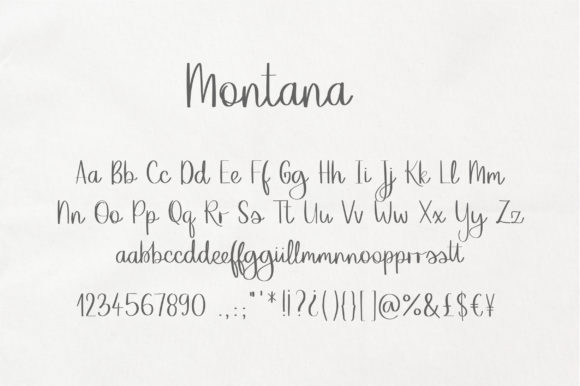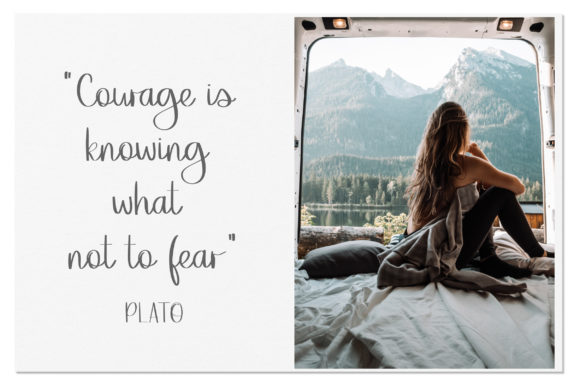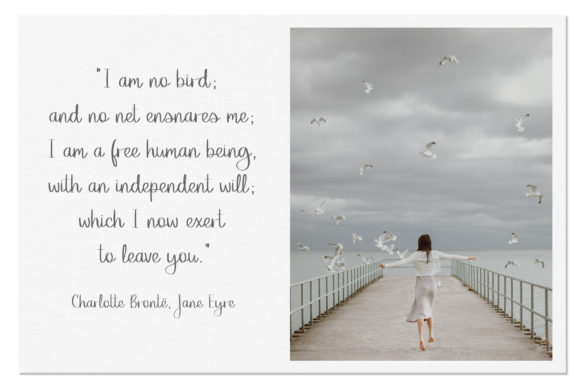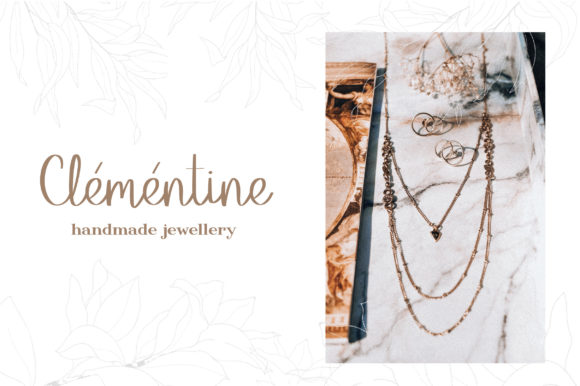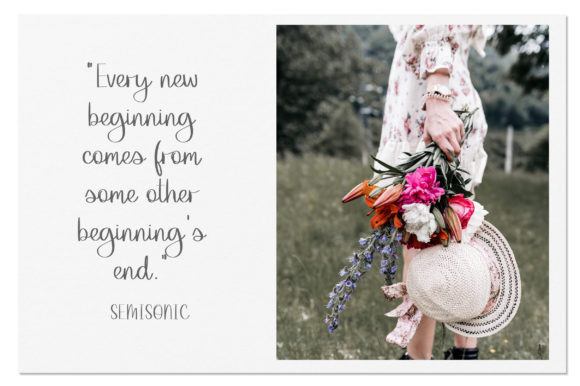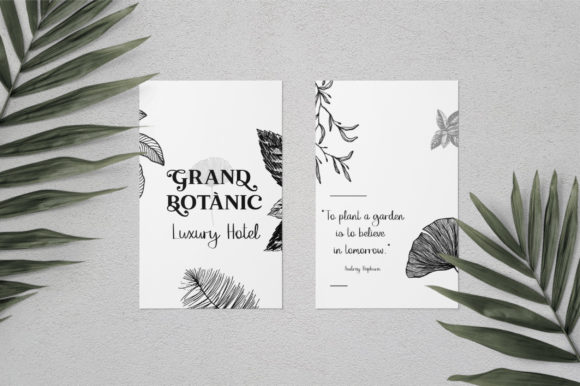
Introduction to Montana Font
Meet the Montana Font, a stunning script font that exudes sophistication and elegance. With its stylish alternates and ligatures, this font is the ultimate choice for any creative project that demands high quality and refinement.
Key Features of Montana Font
- Characterized by its distinctive, hand-drawn style, making it perfect for adding a personal touch to designs.
- Designed to be versatile, suitable for use in a variety of contexts, from digital to print-based creative projects.
Honest Review: Montana Font
I recently had the chance to experiment with the Montana Font, and I must say it’s a great addition to any designer’s arsenal. As a design resource, Montana Font delivers high quality results that are perfect for creative projects.
- High-quality typography with smooth lines and a modern feel
- Available in multiple styles, including bold, light, and regular
- Limited character set, which may not be suitable for longer text-based projects
- May require some adjustments to achieve the desired spacing and alignment
Overall, I’m impressed with the Montana Font’s performance. Its clean design and flexibility make it a great choice for designers looking to add a modern touch to their creative projects. While it may have some limitations, it’s definitely a valuable resource to have in your design toolkit.
The Montana Font is a versatile design resource ideal for high-quality creative projects. With a transparent background, this font is perfect for overlaying on images or backgrounds.
Montana Font is ideal for use in logos, branding materials, social media graphics, and other creative projects that require a high-quality, modern font.
Alternatives to Montana Font